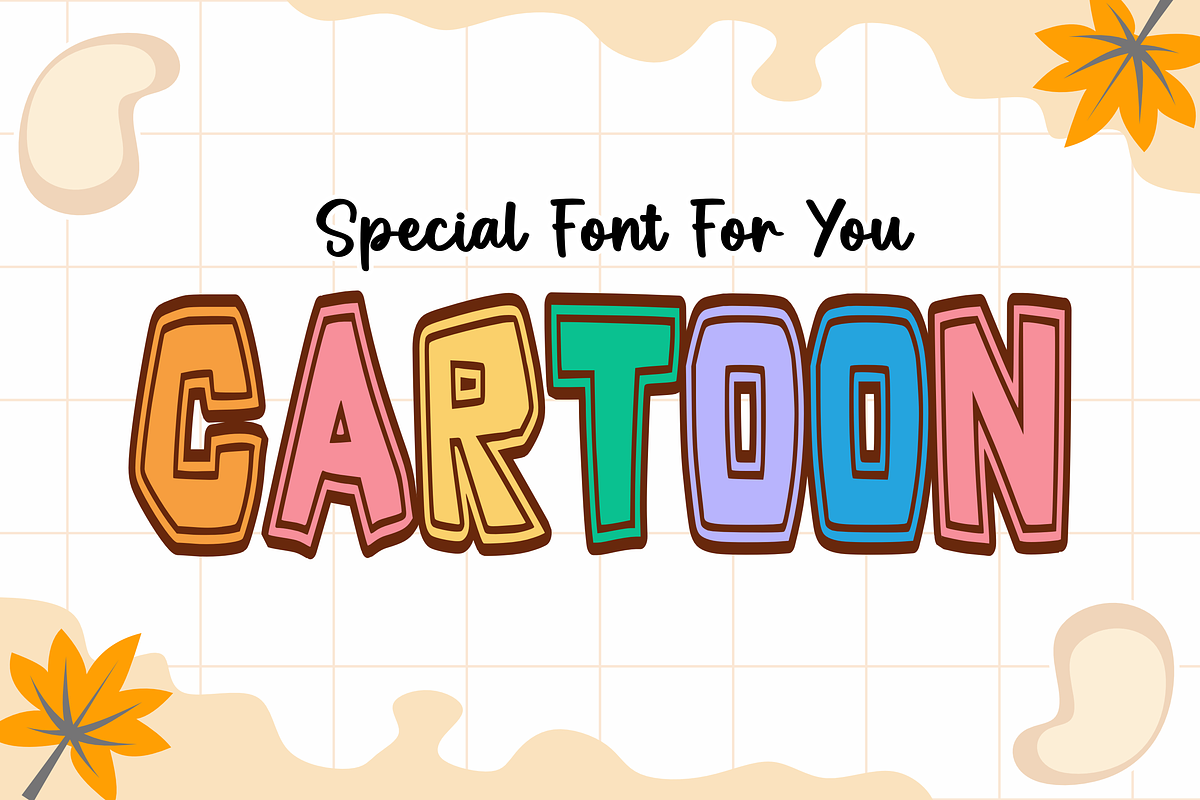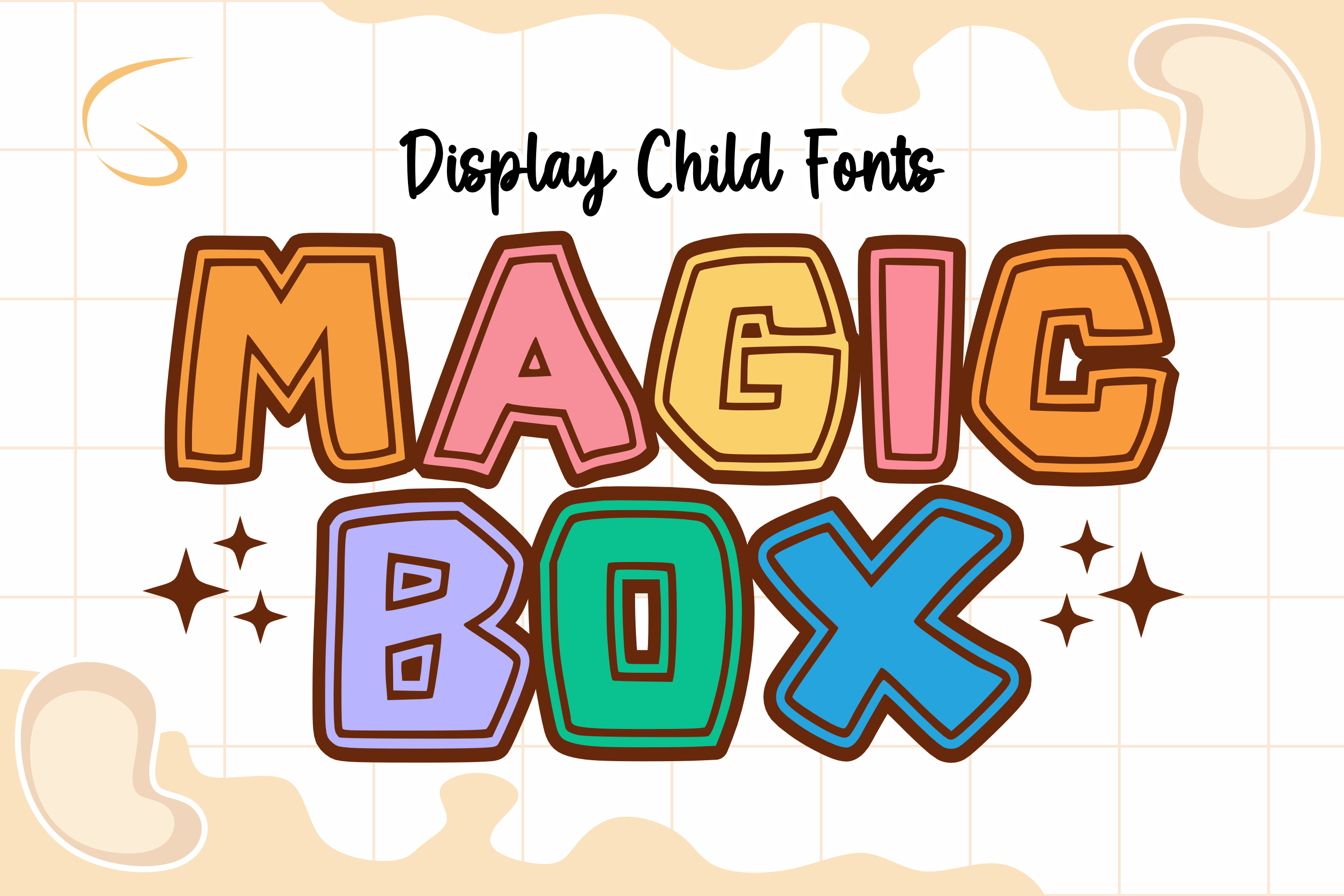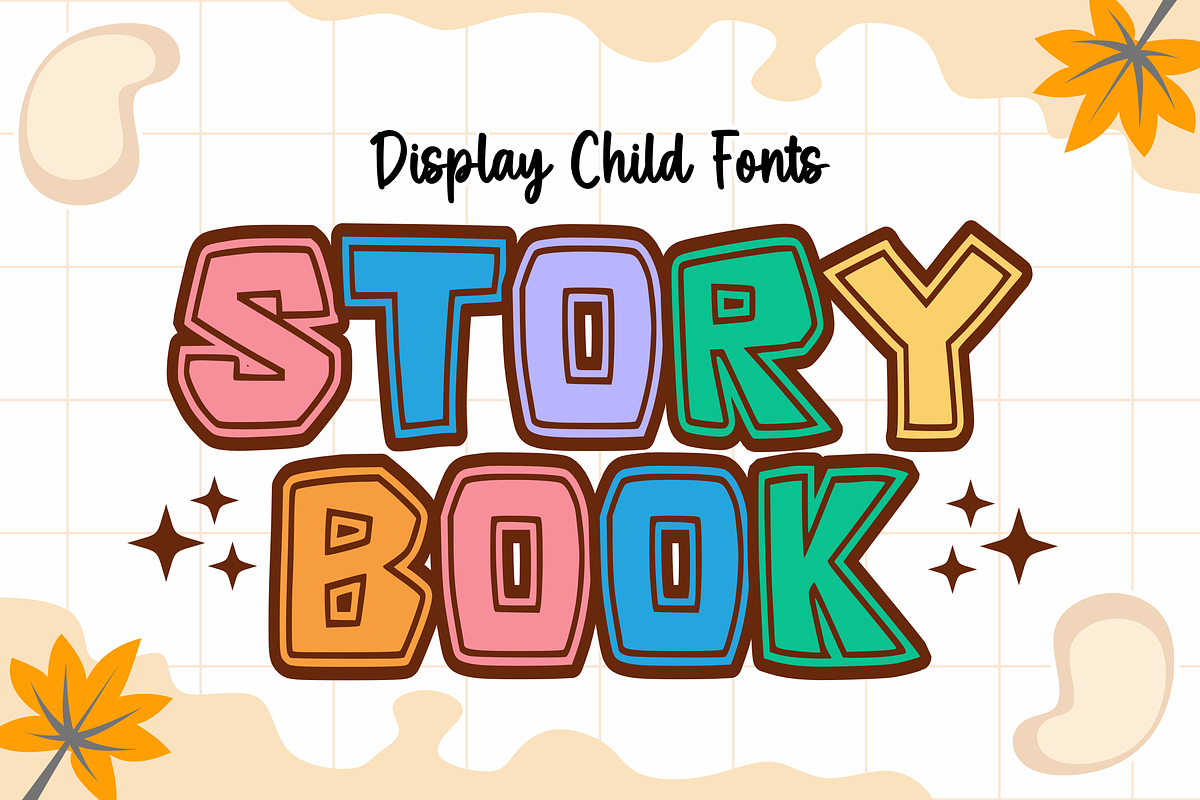
Magic Box - Kids Font Types
Introducing MAGIC BOX – a lively, vivacious display font that brings a powerful, yet charming personality to your display text. Its unmistakable style is characterized by bold, rounded letters that exude exuberance peppered with a childlike innocence. This font’s spirited and youthful appeal is designed to take center stage, infusing vitality into any design it graces. It’s an excellent choice for brightening up titles, uplifting posters, or injecting a dose of creativity into any design project. The MAGIC BOX font is more than just text – it’s a confident celebration of cheerfulness in typographical form.